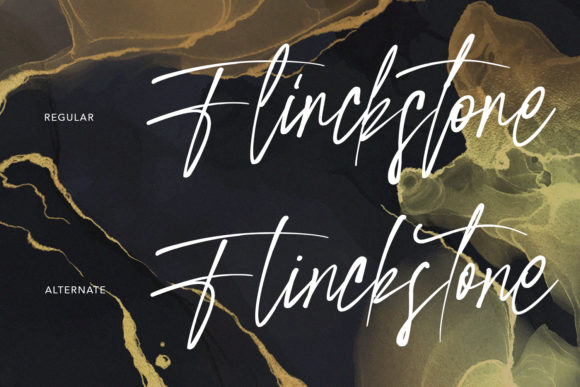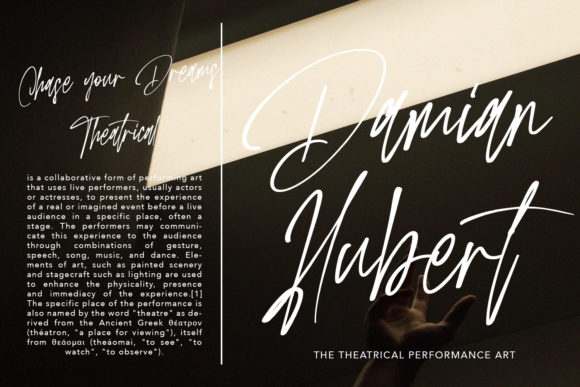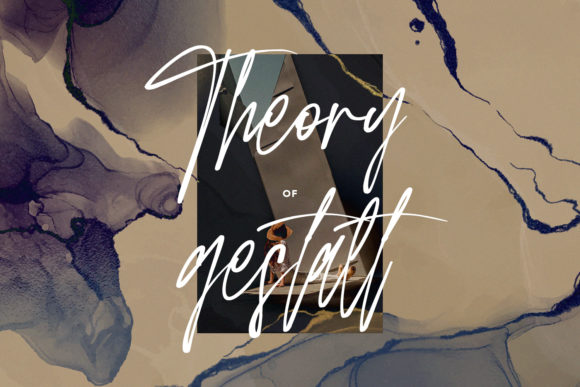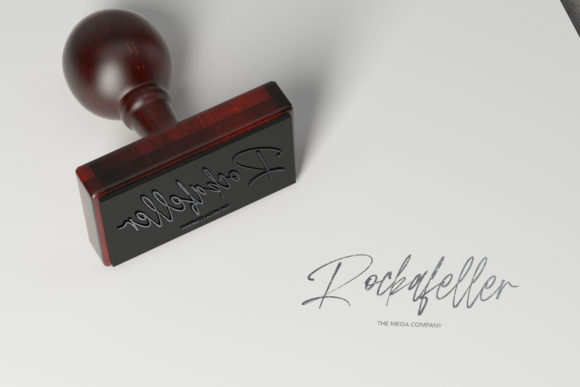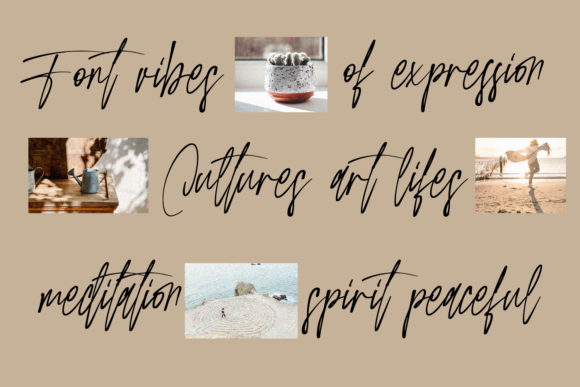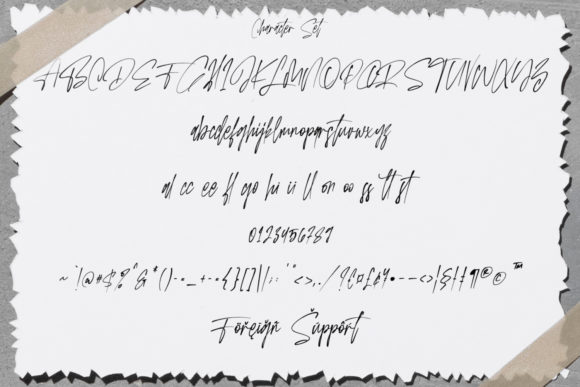
Introducing Flinckstone Font: The Ultimate Handwritten Script for Your Creative Projects
Are you on the hunt for a font that can add a touch of sweetness and elegance to your designs? Look no further than Flinckstone Font, a thin and eye-catching handwritten script that’s perfect for a wide range of creative projects. From greeting cards to kids’ crafts, Flinckstone is the versatile font you’ve been searching for.
What Makes Flinckstone Font So Special?
Flinckstone Font is a beautifully crafted handwritten script that’s designed to capture the essence of a personal, heartfelt message. Its thin strokes and delicate curves make it a standout choice for designers and crafters looking to add a touch of whimsy and charm to their work. Whether you’re creating a custom greeting card, a DIY craft project, or a professional design, Flinckstone Font is sure to impress.
Key Features of Flinckstone Font
- Thin and eye-catching: Flinckstone Font features thin strokes that are both elegant and easy to read.
- Handwritten script: With its flowing curves and natural-looking letterforms, Flinckstone Font has the personal touch of a handwritten script.
- Versatile: From greeting cards to kids’ crafts, Flinckstone Font can be used for a wide range of creative projects.
- Sweet and charming: Flinckstone Font is guaranteed to add a touch of sweetness and charm to your designs.
Applications for Flinckstone Font
So, what can you use Flinckstone Font for? The possibilities are endless! Here are a few ideas to get you started:
- Greeting cards: Add a personal touch to your greeting cards with Flinckstone Font.
- Kids’ crafts: Flinckstone Font is perfect for kids’ crafts, including handmade cards, gift tags, and other creative projects.
- DIY projects: Use Flinckstone Font to add a touch of elegance to your DIY projects, including scrapbooking, journaling, and more.
- Professional designs: Flinckstone Font can also be used for professional designs, including branding, packaging, and advertising.
Tips for Using Flinckstone Font
Here are a few tips for getting the most out of Flinckstone Font:
- Pair with bold fonts: Pair Flinckstone Font with bold fonts for a striking contrast.
- Use for headlines: Use Flinckstone Font for headlines and titles to add a touch of elegance.
In conclusion, Flinckstone Font is a versatile and eye-catching handwritten script that’s perfect for a wide range of creative projects. With its thin strokes, delicate curves, and sweet charm, Flinckstone Font is guaranteed to add a touch of elegance and whimsy to your designs. Whether you’re a designer, crafter, or DIY enthusiast, Flinckstone Font is a must-have font for your creative toolkit.